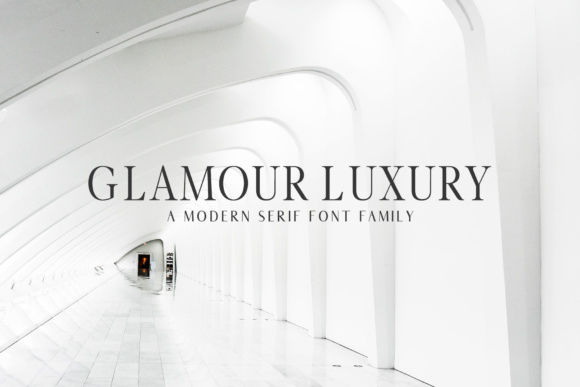
Looking for a font that exudes luxury and elegance? Look no further than Glamour Luxury, the stunning serif font family created by Creative Tacos. With its sleek, modern design and a variety of weights to choose from, Glamour Luxury is perfect for a wide range of creative projects.
Whether you're designing a poster, creating a branding package, or putting together a presentation, Glamour Luxury is the ideal font choice. Its minimalist aesthetic and clean lines make it a versatile option for any project.
One of the best things about Glamour Luxury is the range of weights available. With Regular, Light, Thin, Round, and Bold options to choose from, you can customize your design to perfectly fit your needs.